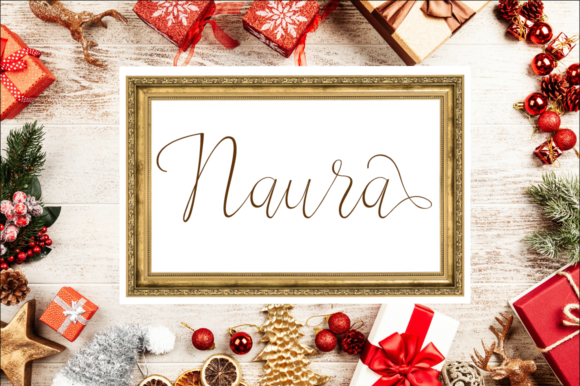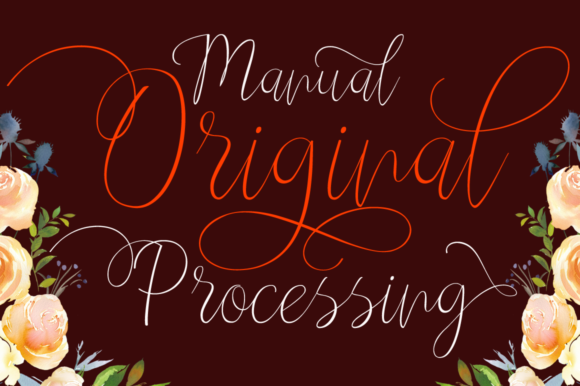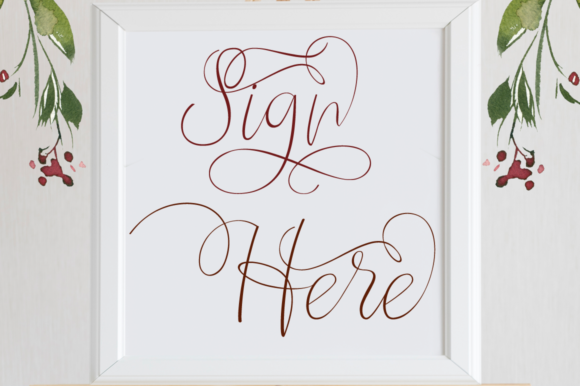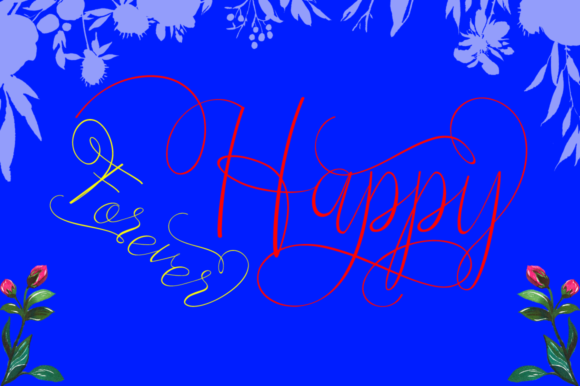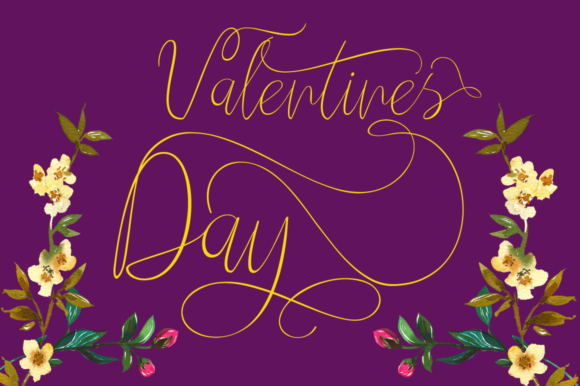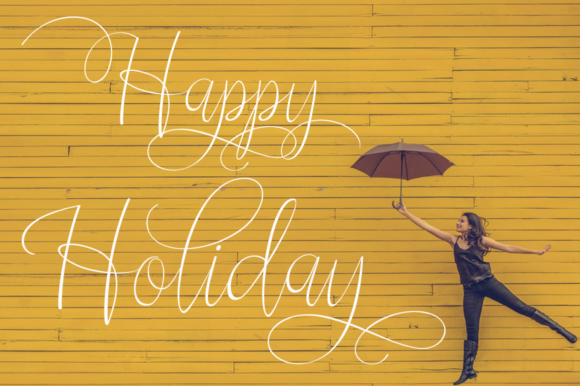
Introduction to Jilyanna Font
Remember that moment when you’re working on a creative project and the perfect font eludes you? The design just isn’t coming together, and you can’t quite put your finger on what’s missing? For many designers, this is a frustrating experience that can stall even the most exciting projects. But what if I told you that there’s a font that can elevate your designs and make them truly shine?
Enter the Jilyanna Font, a beautiful and subtle script font that’s perfect for designers who want to add a touch of elegance and sophistication to their work. With its classy and modern look, this font is ideal for logos, branding, invitations, stationery, wedding designs, social media posts, and much more.
Key Features of Jilyanna Font
- High-quality, professional font design ideal for creative projects and design resources.
- Features a clean and modern design aesthetic, making it suitable for a wide range of creative applications.
- Comes in 6 different font styles, each with its unique characteristics and nuances.
Honest Review: Jilyanna Font
I recently had the chance to work with the Jilyanna Font for a creative project and I must say it’s a fantastic design resource. The high quality of this font really made a difference in the overall aesthetic of my design.
- ✨ Highly legible and readable even at small font sizes
- ✨ Great for both digital and print design applications
One of the things that really stood out to me about the Jilyanna Font is its transparent background, which made it easy to work with and allowed me to focus on the design itself rather than the background.
- Limitations:
- ⚠️ Limited font styles available, which may limit its versatility in certain design applications
- ⚠️ Some users may find the font to be a bit too minimalist for their taste
Overall, I’m really impressed with the Jilyanna Font and would definitely recommend it to designers looking for a high-quality design resource.
Tips for Getting the Most Out of Jilyanna Font
For the best results, use Jilyanna Font in conjunction with other high-quality design elements, such as images and graphics. Experiment with different font sizes and styles to add visual interest to your design project. You can also use Jilyanna Font in combination with a transparent background to create a seamless design.
Jilyanna Font is a versatile font that can be used in a variety of creative projects, including logos, business cards, and social media graphics. It’s also a great choice for designing invitations, flyers, and brochures. With its unique style and high-quality design, Jilyanna Font is a valuable addition to any design resource library.